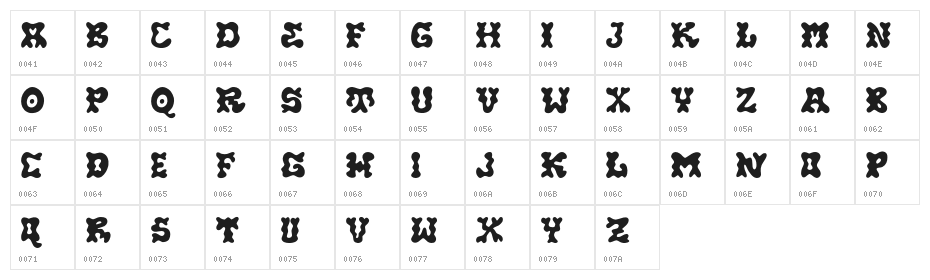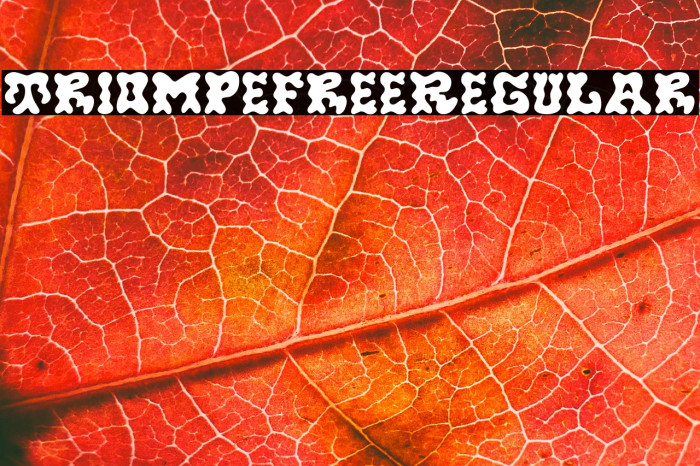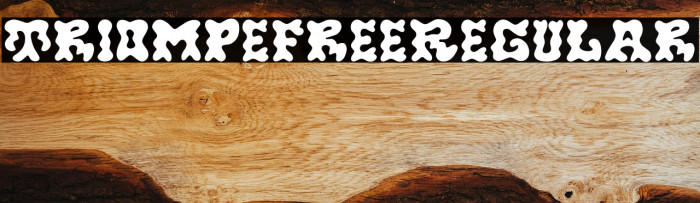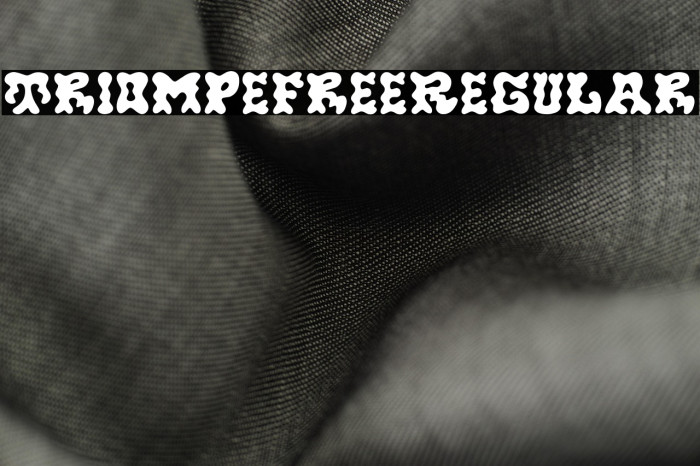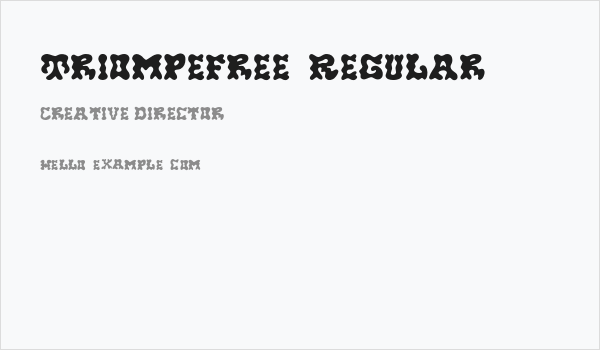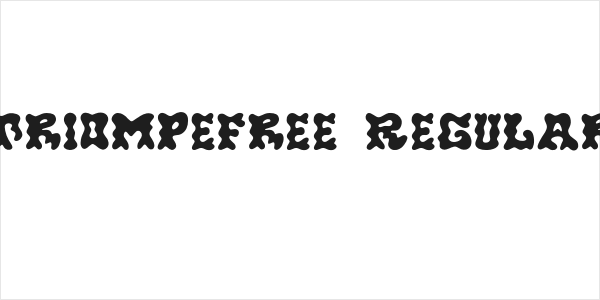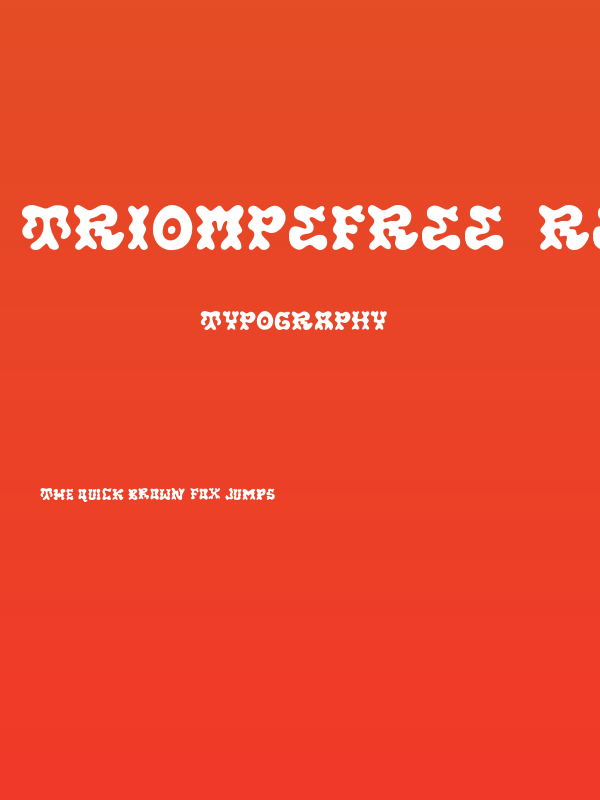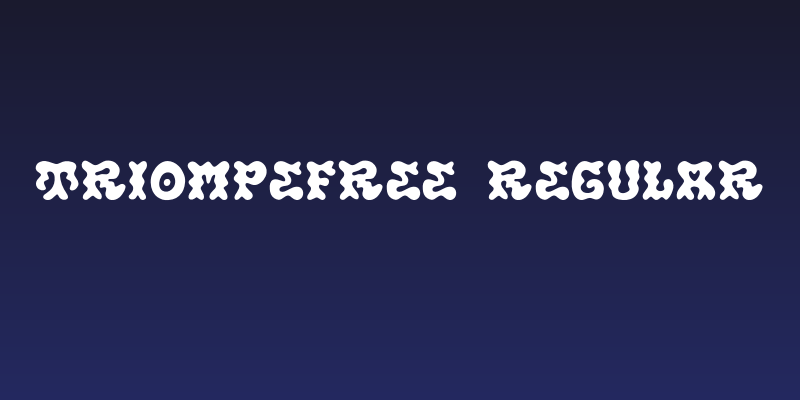
TriompeFree-Regular Font
TriompeFree-Regular Description
This font features a bold and playful design with a distinctive, quirky style. The characters are heavily stylized with exaggerated curves and unique shapes, giving it a whimsical and eye-catching appearance. The boldness of the letters makes it stand out, while the playful forms add a touch of fun and creativity. The font's design is consistent across both uppercase and lowercase letters, maintaining a uniform look. It is ideal for projects that require a bold statement or a creative touch, such as posters, headlines, or branding materials.
| Proposed Projects | Ideal for posters, headlines, branding, and creative projects requiring a bold statement. |